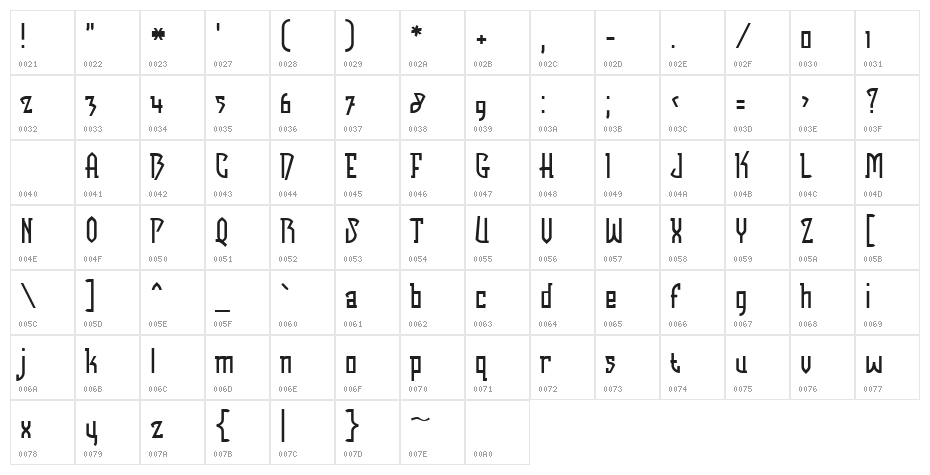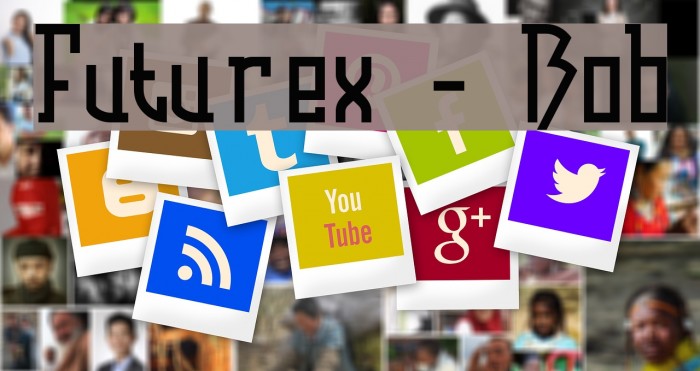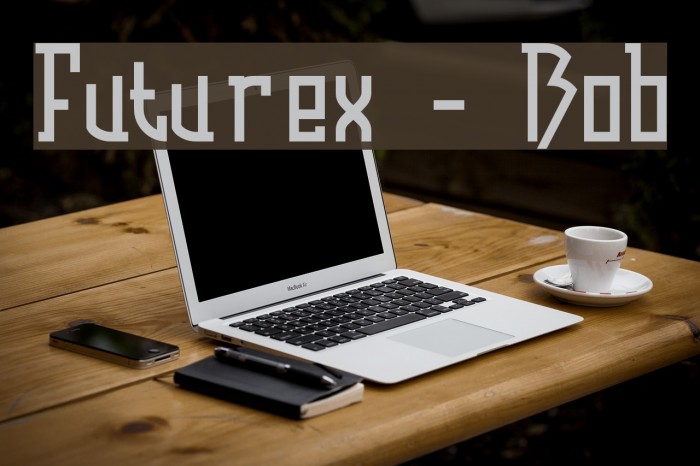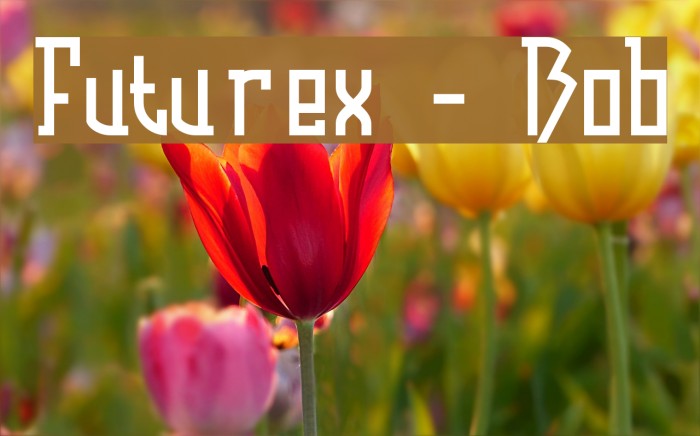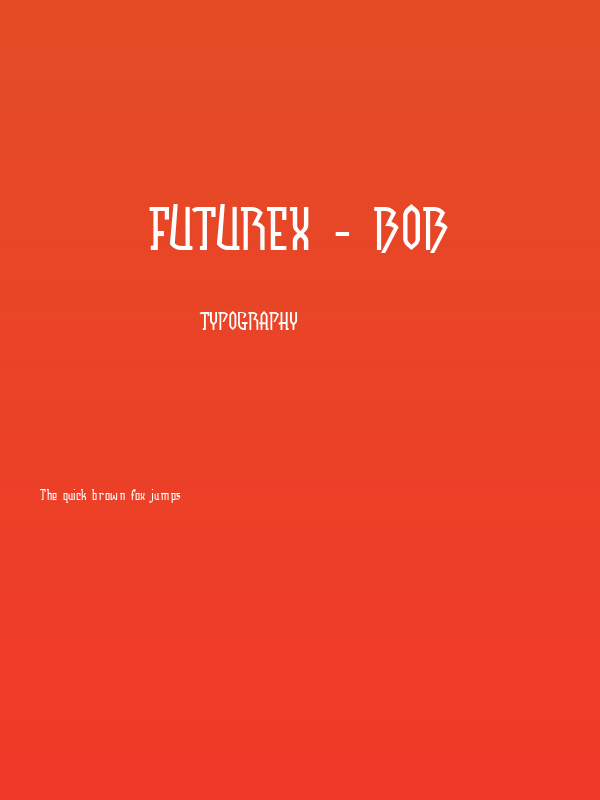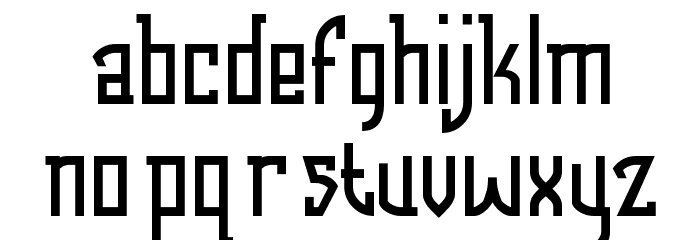
Futurex - Bob Font
Futurex - Bob Description
This font features a bold and futuristic design with sharp angles and geometric shapes. The uppercase letters are tall and narrow, giving a sense of height and modernity. The lowercase letters maintain a consistent style with slightly rounded edges, adding a touch of softness to the overall look. The numbers are uniquely styled, with distinct curves and angles that match the font's futuristic theme. Special characters are creatively designed, maintaining the font's cohesive aesthetic. This font is ideal for projects that require a modern and edgy appearance.
| Proposed Projects | Ideal for sci-fi themed posters, modern branding, video game titles, and tech-related designs. |